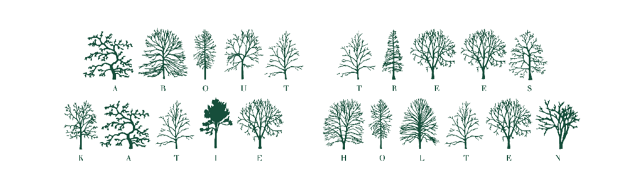
yes, somebody has translated the texts of Borges, Ursula ok. Le Guin and others into dense typographic forests.
Irish artist Katie Holten’s new ebook About bushes is not just a e-book about timber—it is written in timber.
applying 26 completely different tree species to characterize the completely different letters in the Roman alphabet, the texts in About bushes vary from Jorge Luis Borges and Ursula okay. Le Guin to up to date writers like Robert McFarlane and architect Natalie Jeremijenko (who helped design London’s TREE x place of job).
On one web page, the text appears in English (Holten uses the font Walbaum as a result of baum is German for “tree.”) On the alternative page, the text has been translated into the Tree typeface, which Holten designed with the help of fashion designer Katie Brown especially for the book.
“it is just like a kids’s e book,” says Holten, or an illustrated Morse code. The reader simplest must refer back to the key to translate certainly one of Holten’s typographic forests back into English, although shorter texts are more straightforward to translate than longer ones.
“basically, the tree typeface is four occasions the scale of the normal font,” Holten says. “The designers notion it could be extremely boring to have hundreds of pages of trees, in order that’s when the idea of the woodland came about. We condensed it [to fit on one page].”
nevertheless it’s extra than just symbolic translation. The methods through which timber sprout and develop in nature can also be manifested in the kind layout. “If it can be a small textual content, they may be all legible and visual. If it can be a large textual content it can be all overgrown and wooded as a wooded area can be anyhow,” Holten says.
In observe, the short selection from Borges’s Funes, In memory is handiest a in moderation wooded panorama, while Jules Verne’s What is this? is a dense pine forest. In homage to Ada Lovelace, the primary pc programmer, Holten translated an excerpt from Sketch of the Analytical Engine first into binary code and then into twigs, which correspond to the zero-9 digits.
every story looks different—sparse, thick, twiggy, wooded—when its translated into its own distinctive landscape the use of Tree. As Geoff Manaugh at BLDGBLOG suggests, the other can be that you can think of: shall we conceivably use Holten’s tree font to translate landscapes into text. Our forests might grow into encrypted messages or our backyards might tell our favourite short story (i’d make a choice Borges’s garden of the Forking Paths and hope it grew to become out a labyrinth). The political resistance actions of the future might keep up a correspondence secret messages with timber—and go down in history because the slowest revolution ever.
Holten is in full compliance with these plans, and in reality has a few ideas of her personal. “I used to be studying concerning the Obama library today. Their funds is one thing like $1 billion. I immediately was once thinking, ‘i ponder if they are enthusiastic about landscaping the garden and need some kind of typographic forest?” she says with a laugh. “i believe like this is just starting, there is a lot more to come. more volumes—and i need [the typeface] to be planted in actual lifestyles, too.”